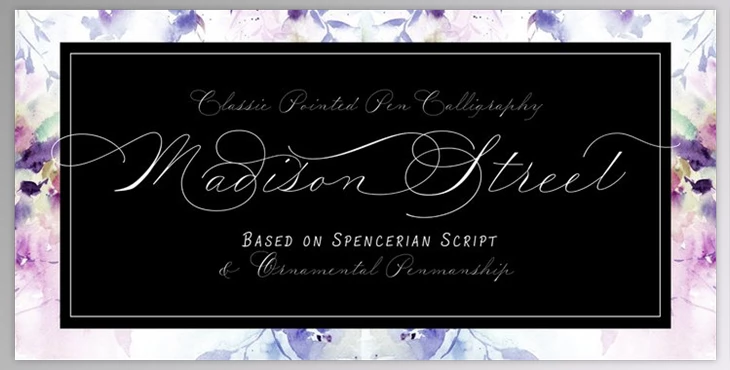
Madison Street is a font family that includes 8 fantastically fun typefaces! Eliza Gwendalyn & Jim Lyles of Studioways have joined forces with Spencerian calligrapher Elaina deBoard to create the classic pointed pen font. From its decorative monograms to its variety of complimentary text styles, to the Madison Street Pro, with its stylish stylistic swashes and OpenType features, there's an appropriate font for any designer. Take advantage of the elegant Madison Street Sans, Serif, or Script together with the Ornaments font featuring ornate monograms, and use each font as a stand-alone font!
Madison Street Pro has all the OpenType bells and whistles. The Ligature feature is able to automatically substitute the letterforms that begin and end, and also 100 Ligatures. You can turn to the Swash feature to create gracefully sweeping lowercase swash forms. You can enable Stylistic Alternates for more possibilities. There are 10 Style Sets that you can select from. There are many more OT features!
Madison Street is a basic version of the Pro font that is designed for users who don't have OpenType proficient applications.
Madison Street Stylistic is also a simplified edition of the Pro font that is designed for people who do not have OpenType proficient applications. It features stylistically distinct ascenders as well as descenders.
Madison Street Swash is intended to be used with standard Fonts Madison Street and Madison Street Stylistic. It comes with the lowercase ending and beginning swash symbols and is not able to set text on its own.
Madison Street Sans, Serif, and Script are text fonts modeled after the writing style of Elaina. They're intended to complement any script fonts. But, you'll have to place them at the smaller size of the point (about 1/3 of their size) to achieve the ideal weight and scale.
The hairline weight in the Madison Street script fonts is extremely thin. At smaller sizes, as high as 40 pixels there is a possibility of that the text is breaking when you print to printers on desktops. To prevent this from happening you can outline stroke the text with a very small size (.1 -.3 number). This should increase the quality of the text without adding to the overall weight.
The Madison Street Font Family you mentioned likely includes a collection of eight different fonts within the same style or theme. Each font within the family may have variations, such as different weights (e.g., regular, bold, italic) and styles, allowing designers to use them for a variety of purposes while maintaining a cohesive visual identity.